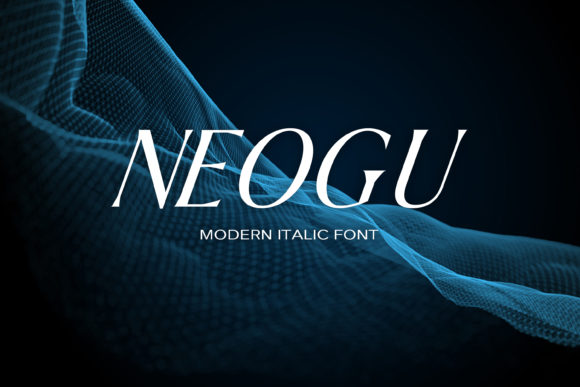
Neogu Font
Feast your eyes on Neogu, a display font that will captivate your designs with its unique blend of traditional charm and modern flair. Inspired by the vibrant energy of sign painting, Neogu embodies the perfect fusion of nostalgia and innovation.
Step into a world of endless possibilities with Neogu. Its clean and dynamic strokes empower you to create captivating designs that leave a lasting impression. Whether you're crafting a bold brand identity, designing eye-catching logos, or adding a touch of character to your headlines, Neogu is your go-to font.
Unleash your creativity with Neogu and transform your designs into masterpieces. Its versatility knows no bounds, making it the perfect choice for a multitude of applications. From sleek business cards to trendy t-shirts, Neogu effortlessly adapts to your design vision, adding a touch of sophistication and style.
Neogu is not just a font; it's a gateway to unlocking your design potential. Its user-friendly nature makes it accessible to designers of all skill levels. Embrace Neogu and embark on a creative journey that will redefine your design aesthetics.
So, why settle for ordinary fonts when you can elevate your designs with the extraordinary Neogu? Its unique charm, versatility, and ease of use make it the perfect choice for any modern design enthusiast. Download Neogu today and let your creativity soar!